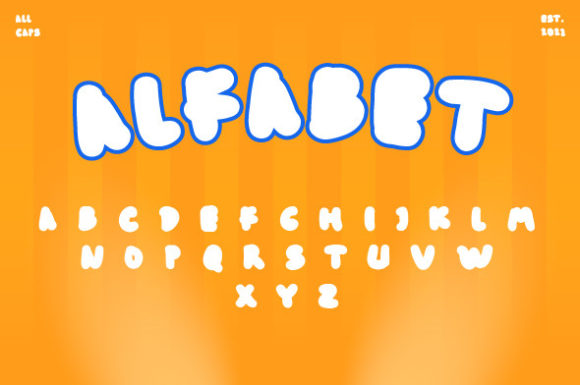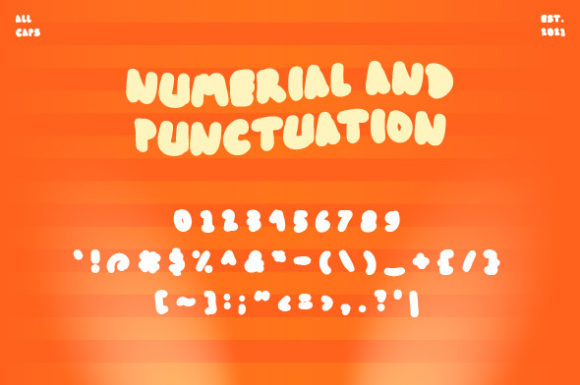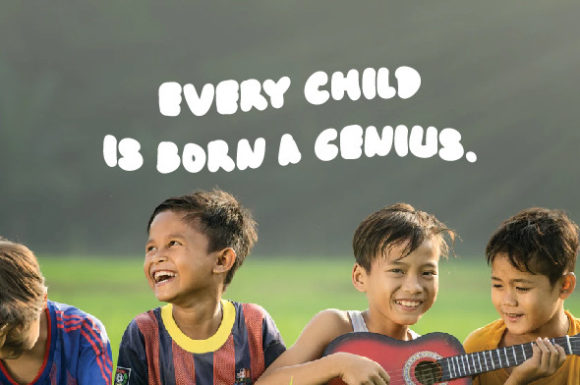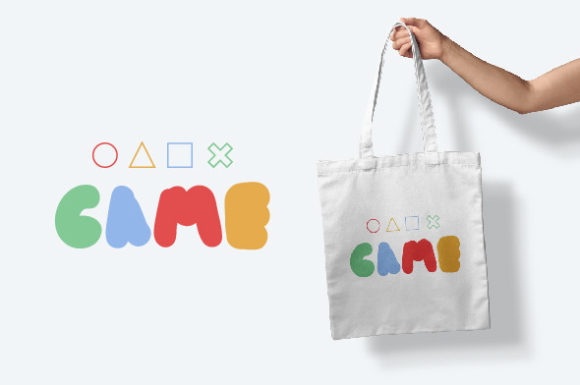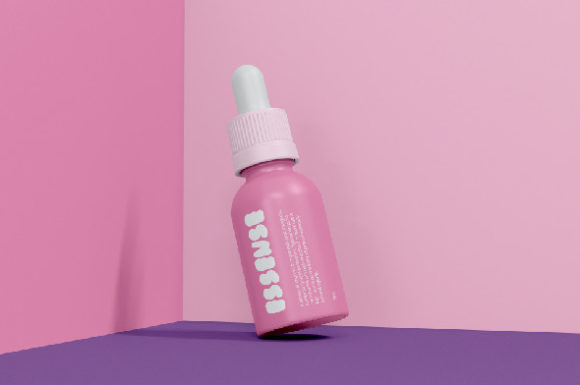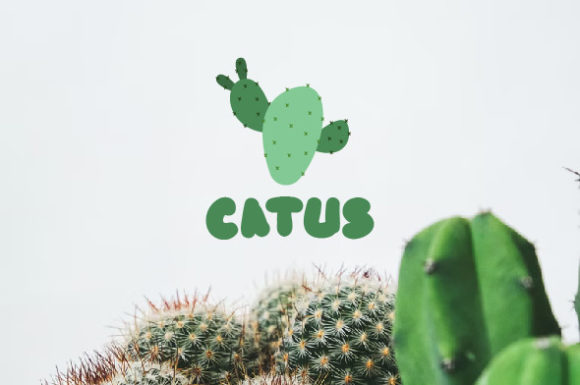
Abika Font: The Friendly and Versatile Display Font for Designers and Crafters
Are you tired of using the same old fonts for your designs and crafts? Look no further than Abika Font, a childish and easy-to-read display font that’s perfect for conveying friendliness and approachability. In this article, we’ll dive into the world of Abika Font and explore its features, uses, and benefits for designers and crafters.
What is Abika Font?
Abika Font is a display font designed to be highly legible and visually appealing. Its childish and playful style makes it perfect for a wide range of applications, from digital design and presentations to crafts and greeting cards. With Abika Font, you can add a touch of friendliness and approachability to your designs, making them more engaging and effective.
Key Features of Abika Font
So, what makes Abika Font so special? Here are some of its key features:
- Childish and playful style: Abika Font has a fun and youthful vibe that’s perfect for designs that need to appeal to a younger audience.
- Easy-to-read: Despite its playful style, Abika Font is highly legible, making it perfect for use in digital designs, presentations, and crafts.
- Versatile: Abika Font can be used for a wide range of applications, from digital design and presentations to crafts and greeting cards.
- Conveys friendliness: Abika Font is designed to convey a sense of friendliness and approachability, making it perfect for designs that need to build a connection with the audience.
Uses of Abika Font
Abika Font is a versatile font that can be used for a wide range of applications, including:
- Crafts: Abika Font is perfect for use in crafts, such as scrapbooking, card making, and DIY projects.
- Digital design: Abika Font can be used in digital designs, such as social media graphics, blog posts, and website headers.
- Presentations: Abika Font is a great choice for presentations, as it’s easy to read and conveys a sense of friendliness and approachability.
- Greeting cards: Abika Font is perfect for use in greeting cards, as it’s playful and conveys a sense of warmth and friendliness.
Benefits of Using Abika Font
So, why should you use Abika Font in your designs and crafts? Here are some of the benefits:
- Adds a touch of friendliness: Abika Font conveys a sense of friendliness and approachability, making your designs more engaging and effective.
- Increases legibility: Abika Font is highly legible, making it perfect for use in digital designs, presentations, and crafts.
- Versatile: Abika Font can be used for a wide range of applications, making it a great addition to your font library.
Tips for Using Abika Font
Here are some tips for using Abika Font in your designs and crafts:
- Use it for headings: Abika Font is perfect for use in headings, as it’s highly legible and conveys a sense of friendliness.
- Pair it with other fonts: Abika Font can be paired with other fonts to create a unique and visually appealing design.
- Experiment with colors: Abika Font looks great in a variety of colors, so don’t be afraid to experiment and find the perfect color for your design.
Abika Font is a friendly and versatile display font that’s perfect for designers and crafters. With its childish and playful style, easy-to-read design, and versatility, Abika Font is a great addition to any font library. Whether you’re using it for crafts, digital design, presentations, or making greeting cards, Abika Font has the potential to become your favorite go-to font. So why not give it a try and see the difference it can make in your designs and crafts?